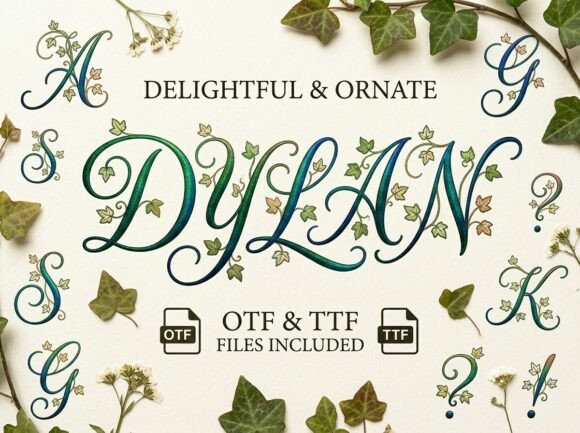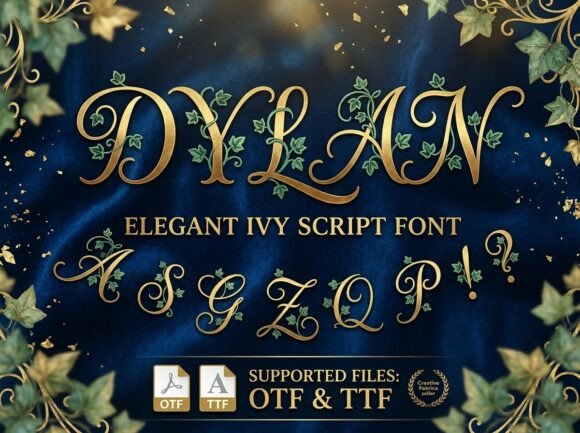
Introducing Dylan Font: The Timeless Elegance of an English Garden
Imagine transporting your designs to a lush English garden, teeming with life and vibrant greenery. With Dylan, an exquisite ornate ivy script font, you can invite the timeless beauty of nature into your creations. Each character is meticulously entwined with hand-painted, vibrant green ivy vines, symbolizing growth and evergreen elegance.
The Perfect Choice for Enchanting Designs
Dylan is the premier choice for designers and crafters seeking to add a touch of whimsy and sophistication to their projects. Whether you’re creating enchanting wedding stationery, boutique manor branding, artisanal organic packaging, or whimsical editorial headlines, Dylan is the perfect font to elevate your designs.
Unique Characteristics of Dylan Font
What sets Dylan apart from other fonts is its unique, hand-painted ivy vines that entwine each character. This distinctive feature adds a touch of organic elegance to any design, making it perfect for:
- Wedding stationery: Add a romantic touch to your wedding invitations, save-the-dates, and thank-you cards with Dylan’s whimsical, ivy-entwined script.
- Boutique manor branding: Elevate your luxury brand with Dylan’s sophisticated, elegant aesthetic, perfect for high-end hotels, restaurants, and estates.
- Artisanal organic packaging: Bring a touch of natural elegance to your eco-friendly packaging with Dylan’s charming, hand-painted ivy vines.
- Whimsical editorial headlines: Add a playful, eye-catching touch to your editorial designs with Dylan’s unique, ornate script.
Design Inspiration from Nature
The inspiration behind Dylan font comes from the timeless beauty of an English garden. The font’s creator aimed to capture the essence of nature’s elegance and whimsy, infusing each character with the delicate, curved lines of ivy vines.
With Dylan, you can bring the charm of an English garden into your designs, evoking feelings of:
- Romance: Perfect for wedding designs, Dylan’s ivy-entwined script exudes love and romance.
- Elegance: Add a touch of sophistication to your luxury brand with Dylan’s refined, ornate aesthetic.
- Whimsy: Bring a playful touch to your editorial designs with Dylan’s unique, hand-painted ivy vines.
Tips for Using Dylan Font Effectively
To get the most out of Dylan font, consider the following design tips:
- Pair with neutral colors: Let Dylan’s vibrant green ivy vines take center stage by pairing the font with neutral colors like beige, cream, or pale gray.
- Experiment with sizes: Use Dylan’s larger sizes for headlines and titles, and smaller sizes for body text and descriptions.
- Mix with other fonts: Combine Dylan with other fonts to create a unique, visually appealing design.
Dylan font is a versatile, exquisite ornate ivy script font that brings the timeless beauty of an English garden into your designs. With its unique, hand-painted ivy vines and sophisticated aesthetic, Dylan is perfect for designers and crafters seeking to add a touch of elegance and whimsy to their projects.
Whether you’re creating wedding stationery, boutique manor branding, artisanal organic packaging, or whimsical editorial headlines, Dylan font is sure to elevate your designs and leave a lasting impression.